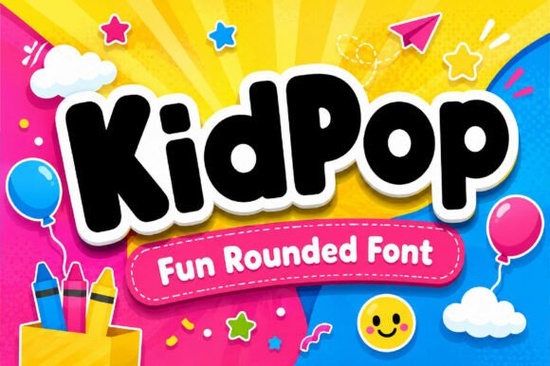
Looking for a typeface that brings genuine energy to children’s projects? The Kidpop Font delivers exactly that kind of spirited typography. It serves as a solid tool for anyone needing bold, rounded letters that feel approachable yet distinct. Whether you are creating party invitations or packaging for toys, having the right letterforms changes how people interact with your visual message. This playful style fits perfectly into modern design trends that value warmth over cold geometry. When working with young audiences, clarity meets charm, and these bubbles capture that balance without sacrificing legibility.
Where Does This Typography Fit In Your Projects?
Designers often struggle to find a script that feels friendly without appearing childish in the wrong contexts. Because KidPop features thick strokes and soft curves, it remains readable even at smaller sizes. This makes it versatile for various materials. Parents reading classroom resources can grasp the text instantly, and adults browsing apparel mockups see a clear message rather than noise.
- Children’s Book Covers: The voluminous shapes draw eyes immediately.
- Social Media Graphics: Bold headlines perform better in feeds crowded with flat images.
- T-Shirt Printing: Large text blocks work well on cotton blends.
- Stickers and Labels: The rounded edges fit physical die-cuts easily.
You can also employ this font in bold branding projects for a modern, fun, and engaging feel. If you are managing a toy shop or organizing community events, the cheerful persona helps establish trust. It radiates a friendly, exciting vibe that captures the true essence of freedom in typography. You can access the complete set including capitals, lowercase letters, numbers, and punctuation right here.
How Does It Compare To Other Bubbly Styles?
Not all round fonts offer the same level of stability. Some thin bubble designs lose detail when printed on dark fabrics. Others become hard to read when scaled up too large. This specific option avoids those common pitfalls through its robust construction. If you find this style a bit too soft for your needs, you might enjoy something with sharper edges. The team behind this library also offers Stay Funky, which keeps the attitude while adding a jagged, energetic edge to your layouts.
On the flip side, perhaps you need something warmer and softer for seasonal campaigns. A bright summer theme often benefits from a lighter touch. While KidPop holds its own, mixing it with a complementary aesthetic creates a layered design hierarchy. Consider pairing your primary headlines with a subtler text like Summer Forever for background details or quotes. This prevents the design from feeling overwhelming while maintaining a cohesive color palette.
Can It Handle Professional Branding?
Some designers hesitate to use display fonts for business logos fearing they might look unprofessional. However, current trends lean heavily towards personality-driven identity systems. Modern brands want to connect emotionally with consumers quickly. By choosing a typeface that screams fun without screaming cheap, you signal authenticity. For businesses aiming at a niche market, such as handmade crafts or boutique retail, this style cuts through the corporate clutter effectively.
If you are planning a vintage-inspired line that still wants to stand out, contrast is key. A retro feel pairs nicely with this modern interpretation of classic cartoons. You could mix elements inspired by Modern Vintage styles to bridge the gap between nostalgia and contemporary playfulness. Additionally, for household goods or kitchen items, the whimsical nature extends well to packaging. Brands selling food products or home decor often use this approach to soften their image.
Design Tips for Maximum Impact
To get the most out of these letters, pay attention to spacing and color selection. Tight kerning can make bubble letters look cramped, so give each glyph room to breathe. Pairing with pastel backgrounds enhances the sweetness, while high-contrast colors like black or navy make the text pop. Using gradients adds depth without losing the cartoonish outline effect. Keep in mind that the font is optimized for display use, meaning it excels as headlines rather than body text for long articles.